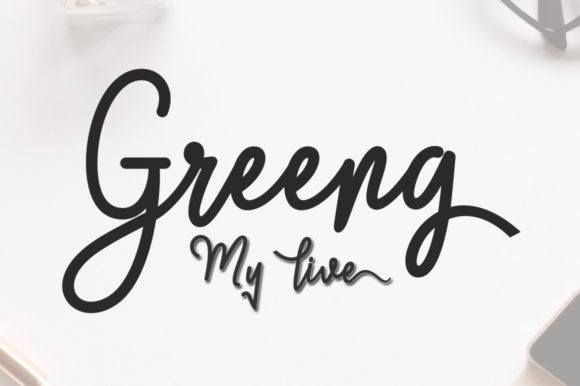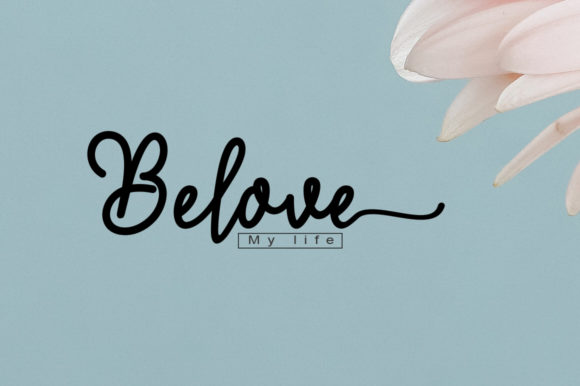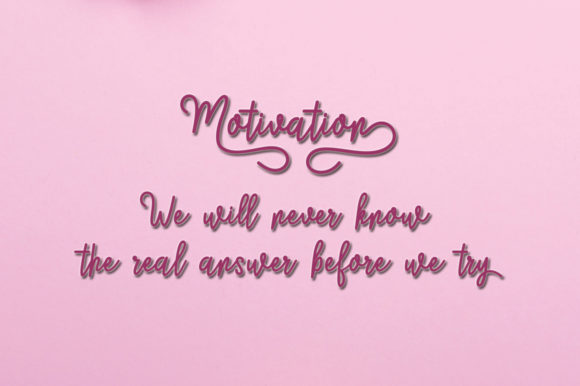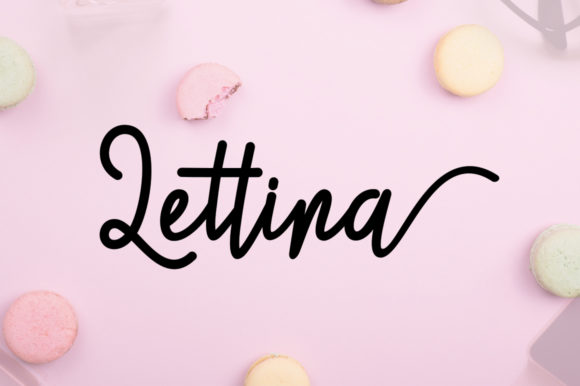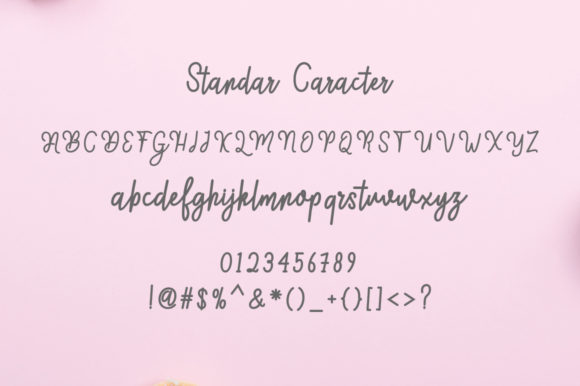
Discover the Elegance of Amardiola Font: A Perfect Choice for Designers and Crafters
Are you a designer or crafter looking for a font that exudes charm and elegance? Look no further than the Amardiola Font. This beautiful, handwritten font is perfect for adding a touch of sophistication to any design project. In this article, we’ll explore the features and benefits of Amardiola Font, and why it’s a must-have for any creative professional.
What is Amardiola Font?
Amardiola Font is a stunning, handwritten font that feels equally charming and elegant. Its unique and beautiful design makes it perfect for a wide range of design projects, from wedding invitations and thank you cards to quotes, greeting cards, logos, and business cards. Whether you’re a designer, crafter, or DIY enthusiast, Amardiola Font is a versatile and stylish choice that is sure to impress.
Key Features of Amardiola Font
So, what makes Amardiola Font so special? Here are just a few of its key features:
- Varying Baseline: The font features a varying baseline, which gives it a natural, handwritten feel. This makes it perfect for designs that need to look personal and unique.
- Smooth Lines: Amardiola Font has smooth, flowing lines that give it a elegant and sophisticated look. This makes it perfect for designs that need to look refined and polished.
- Gorgeous Glyphs: The font includes a wide range of gorgeous glyphs and swashes, which can be used to add visual interest and personality to your designs.
- Stunning Alternates: Amardiola Font also includes stunning alternates, which give you even more options for customizing your designs.
Why Choose Amardiola Font?
So, why should you choose Amardiola Font for your design projects? Here are just a few reasons:
- Unique and Elegant: Amardiola Font is a unique and elegant font that will add a touch of sophistication to any design project.
- Versatile: The font is versatile and can be used for a wide range of design projects, from wedding invitations and greeting cards to logos and business cards.
- High-Quality: The font is high-quality and features smooth lines, gorgeous glyphs, and stunning alternates.
How to Use Amardiola Font
- Experiment with Glyphs and Swashes: The font includes a wide range of glyphs and swashes, so don’t be afraid to experiment and add your own personal touch.
In conclusion, Amardiola Font is a beautiful, elegant, and versatile font that is perfect for designers and crafters. Its unique and charming design makes it perfect for a wide range of design projects, from wedding invitations and greeting cards to logos and business cards. With its PUA encoding, varying baseline, smooth lines, gorgeous glyphs, and stunning alternates, Amardiola Font is a must-have for any creative professional.